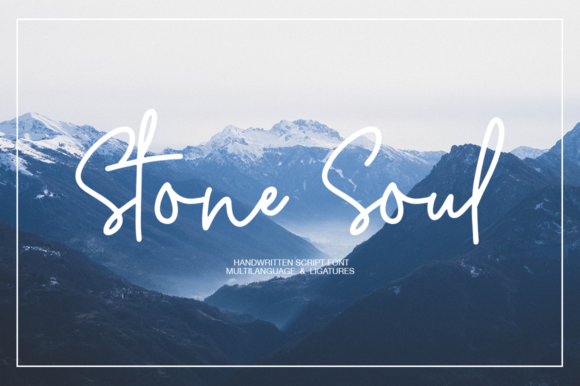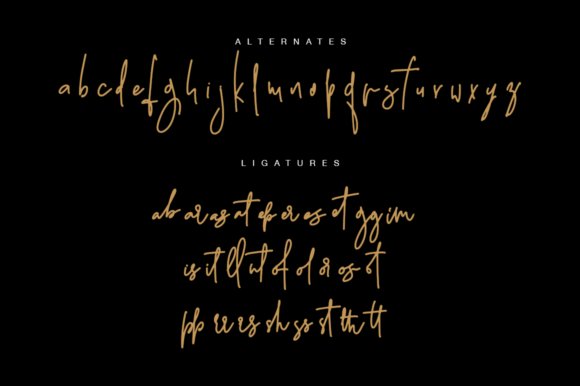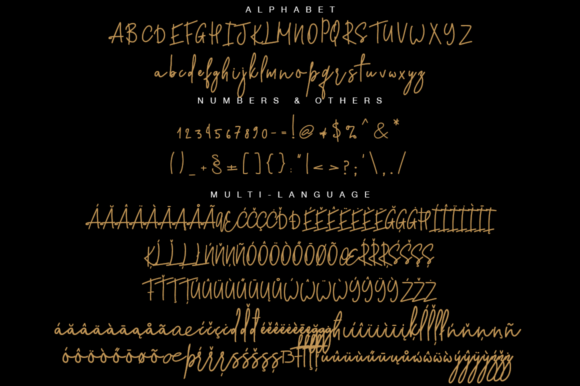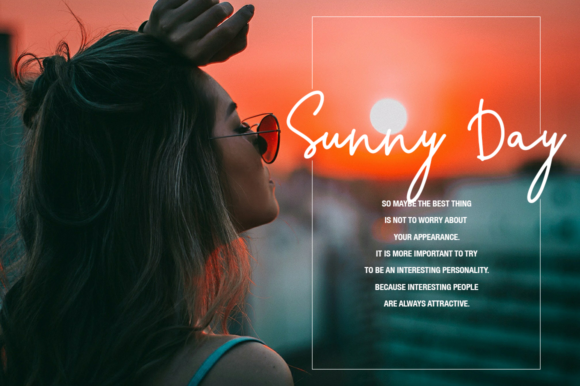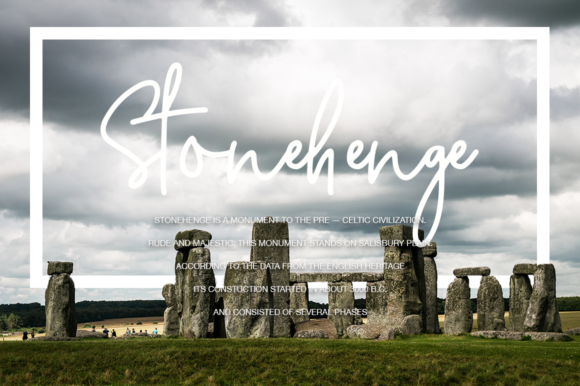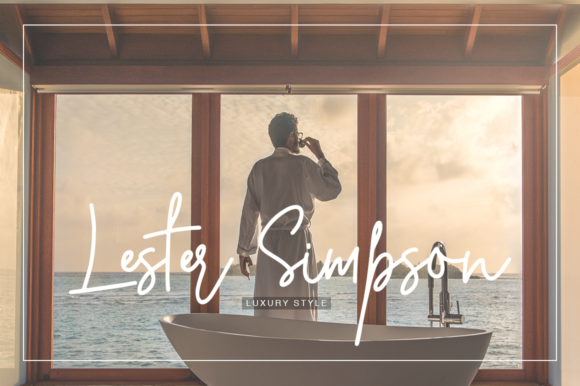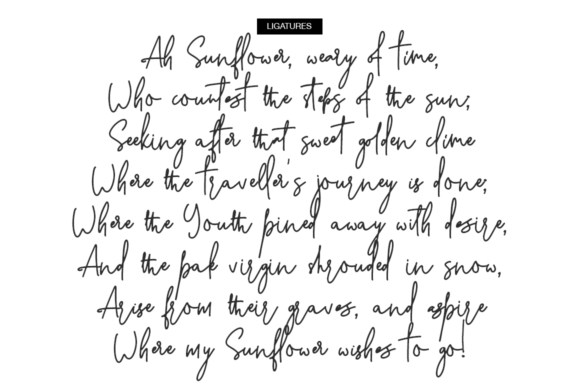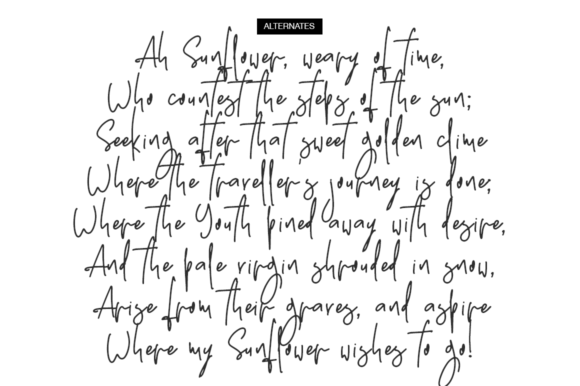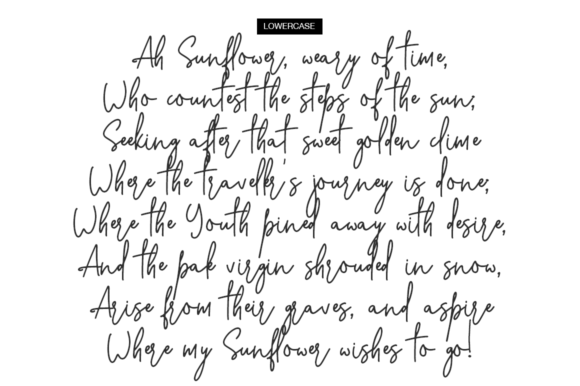
Stone Soul Font
The Stone Soul is a fresh handmade calligraphy font. It has thin elegant letters with a good readability.
Very suitable for greeting cards, branding materials, business cards, quotes, posters, and more!